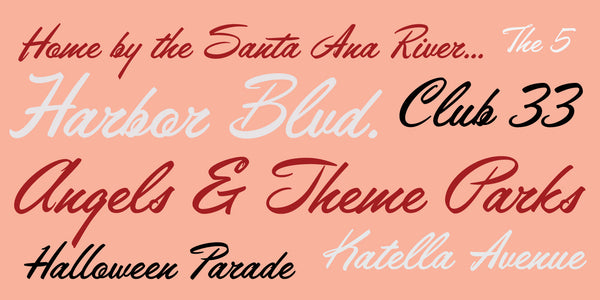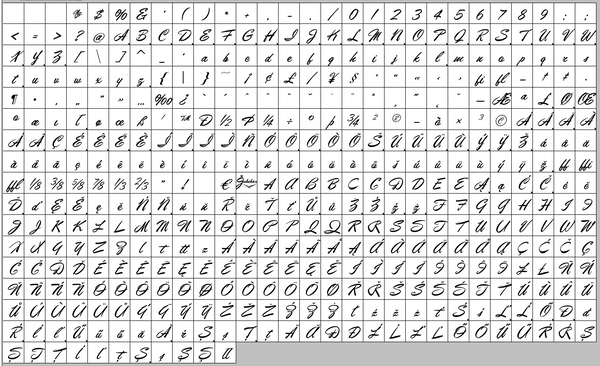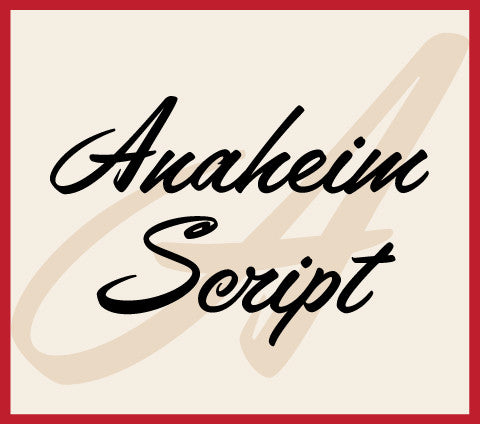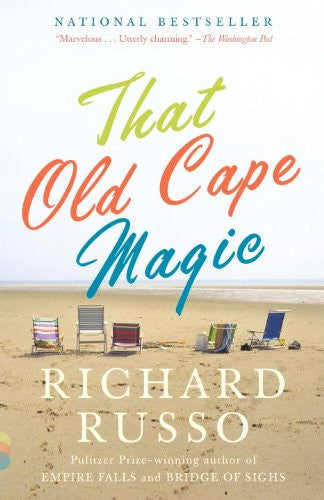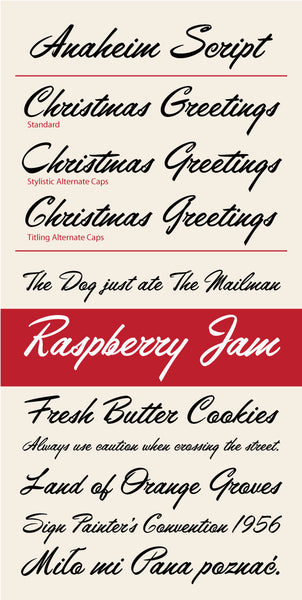
Anaheim Script
Anaheim Script is another fun retro 1950s script font from Jukebox. Inspired by a sample in an old "how-to" book on hand lettering, this font grabs attention with its fun mid-century feel. Reminiscent of the hand painted signs of the 1950s and 1960s, Anaheim Script captures the fun and optimistic view of southern California.
The font contains three versions of each capital letter, allowing the user to mix and match for a more custom feel. The alternate characters can be accessed via the glyph palette or OpenType features.
Notable Use: Anaheim Script was used on the cover of Richard Russo's bestselling novel "That Old Cape Magic".